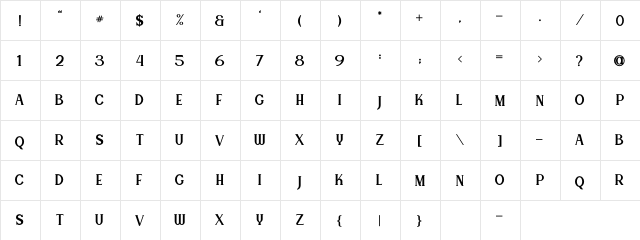
Canting Regular_DEMO Regular
| Designer | Omotu Studio 2019 |
Design Context for Canting Regular_DEMO Typeface
Canting Regular_DEMO is a composed and adaptable typeface that performs quietly and consistently across a wide range of design contexts.